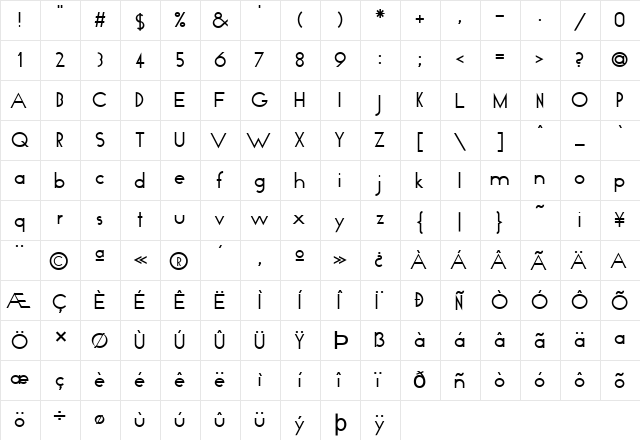
FZ BASIC 19 Normal Font Preview
FZ BASIC 19 Normal
Design Context for FZ BASIC 19 Typeface
FZ BASIC 19 offers clean, dependable letterforms without strong stylistic allegiance, making it a practical choice for designers who need flexibility.